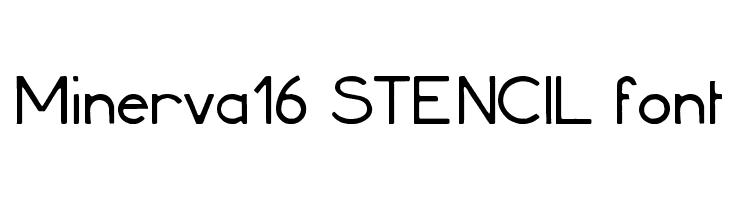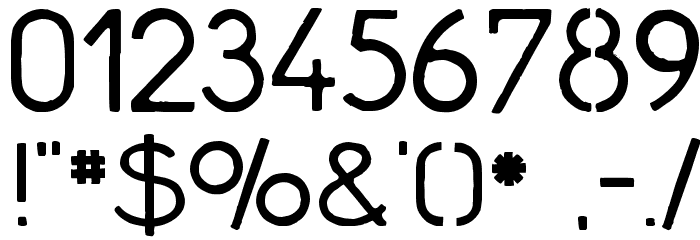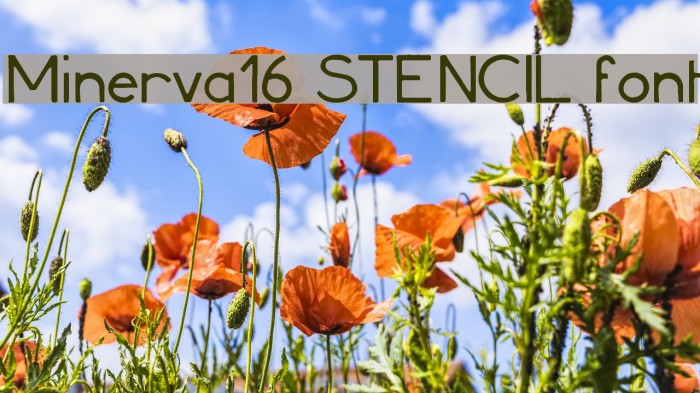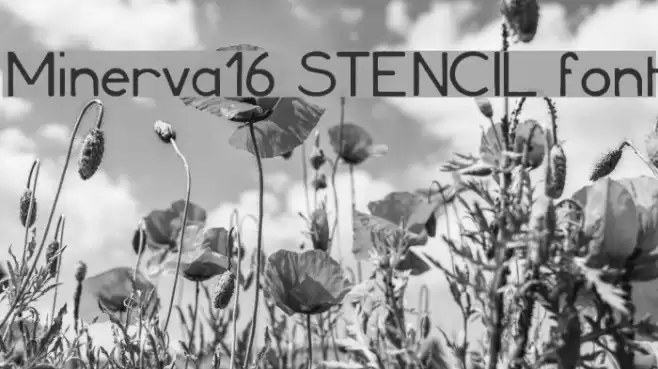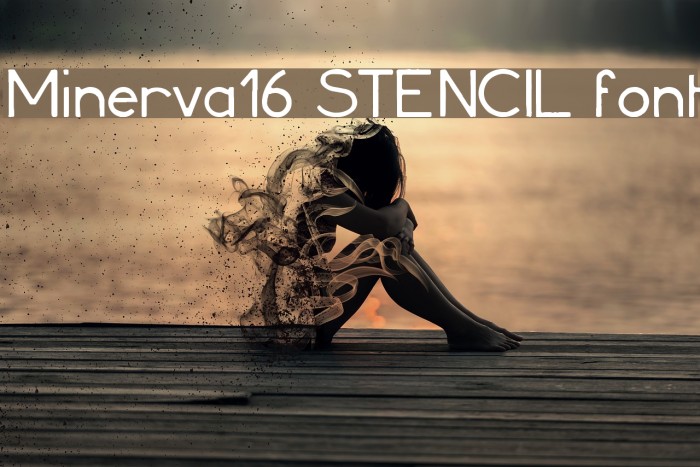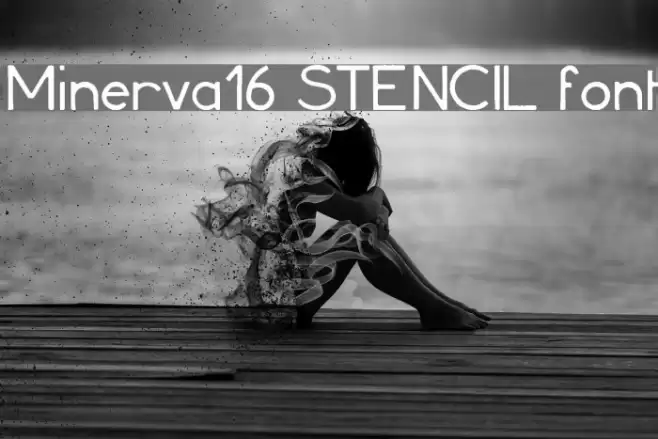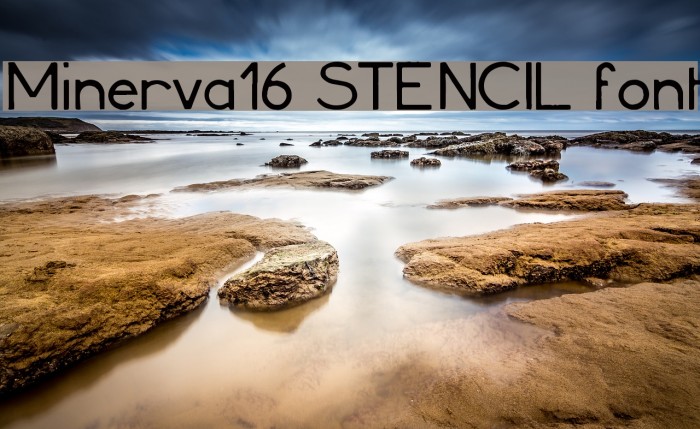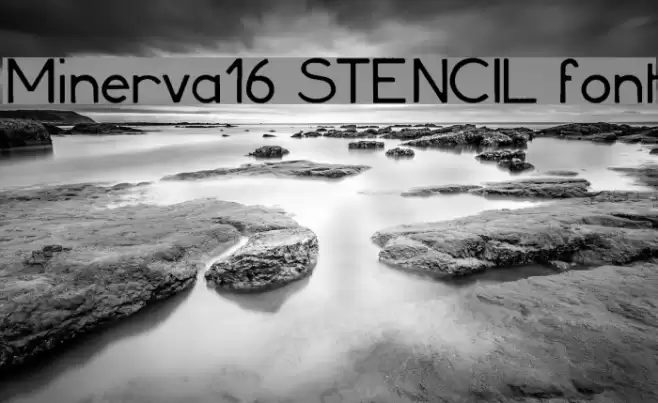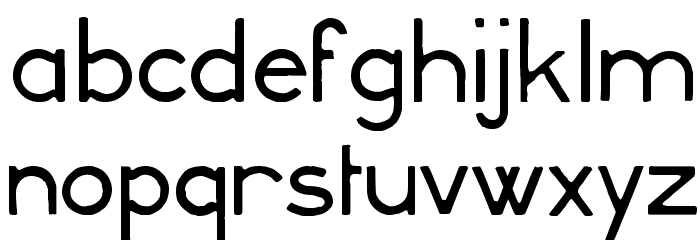
Minerva16 STENCIL font Font
Minerva16 STENCIL font Description
This font features a modern stencil design with clean, geometric lines and open spaces within each character. The uppercase and lowercase letters maintain a consistent style, offering a balanced and uniform appearance. The numerals are distinct and easily readable, complementing the overall aesthetic. Special characters are crafted with precision, maintaining the font's cohesive look. The design is both functional and stylish, making it suitable for a variety of applications where a contemporary and industrial feel is desired.
| Use Case | Logos, Headlines, Signage |
| Proposed Projects | Ideal for branding, packaging, signage, and editorial design where a contemporary and industrial aesthetic is desired. |